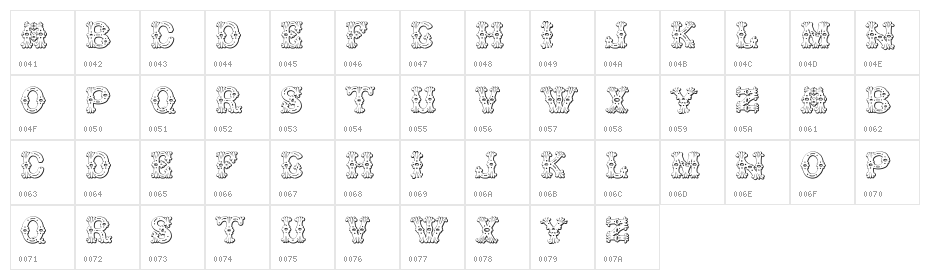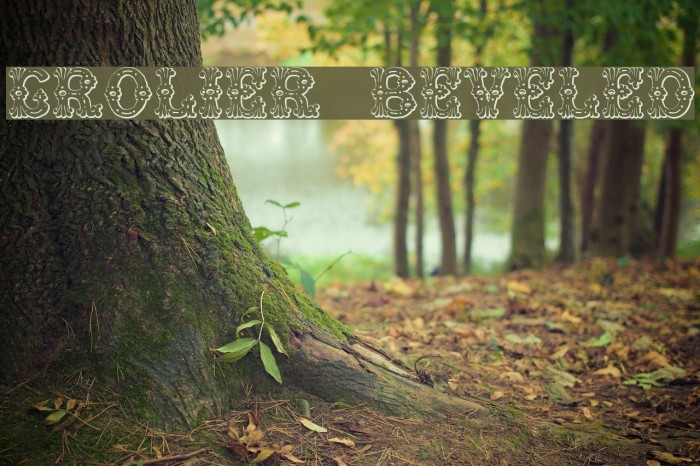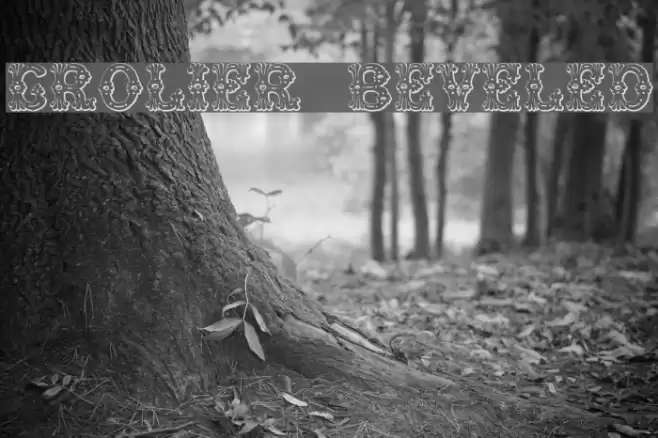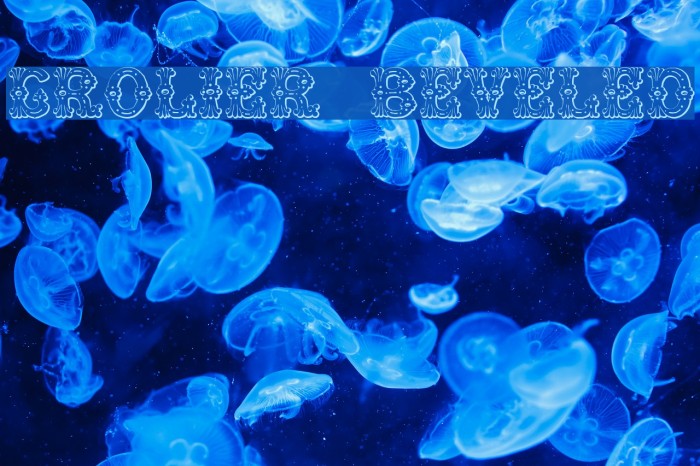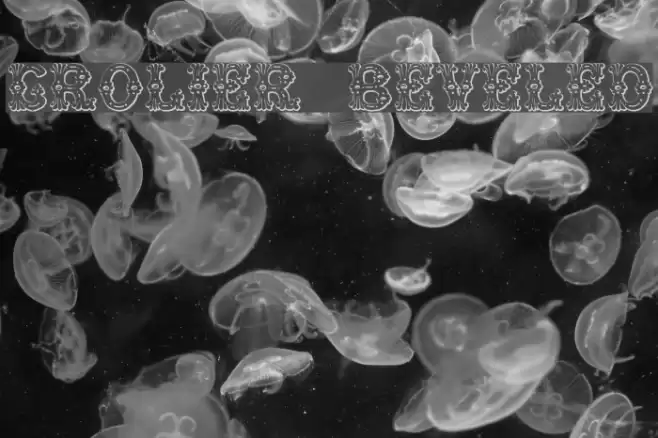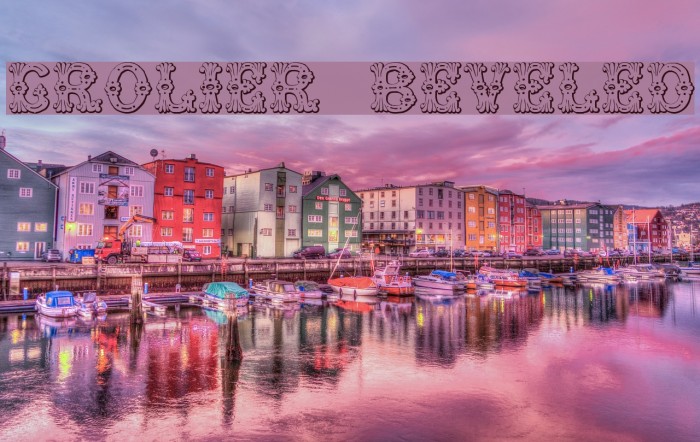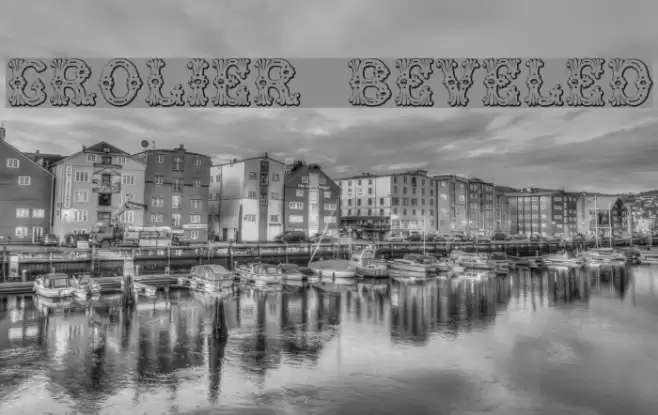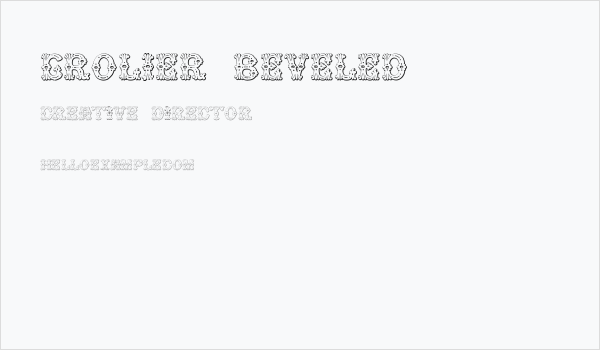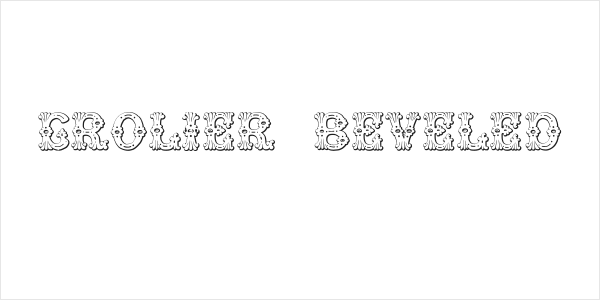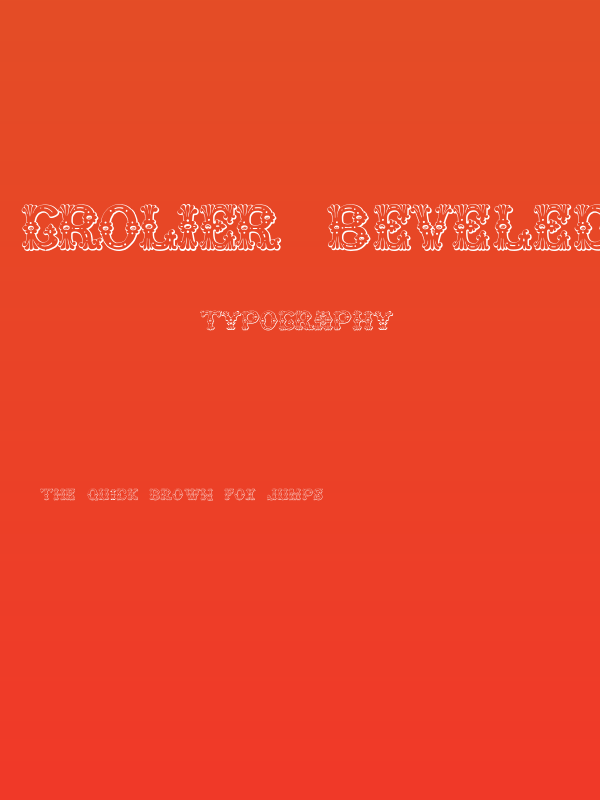
Grolier Beveled Font
Grolier Beveled Description
This font features an intricate and decorative design, characterized by its ornate and elaborate detailing. Each letter is embellished with unique, swirling patterns that give it a distinct, artistic flair. The characters are bold and eye-catching, making them stand out with their complex, almost floral-like embellishments. This style is reminiscent of vintage or Victorian-era typography, where the emphasis is on decorative appeal. The font's design is consistent across all characters, maintaining a cohesive and harmonious look that is both visually striking and sophisticated.
| Proposed Projects | Ideal for vintage-themed designs, wedding invitations, posters, and branding that requires a touch of elegance and sophistication. |